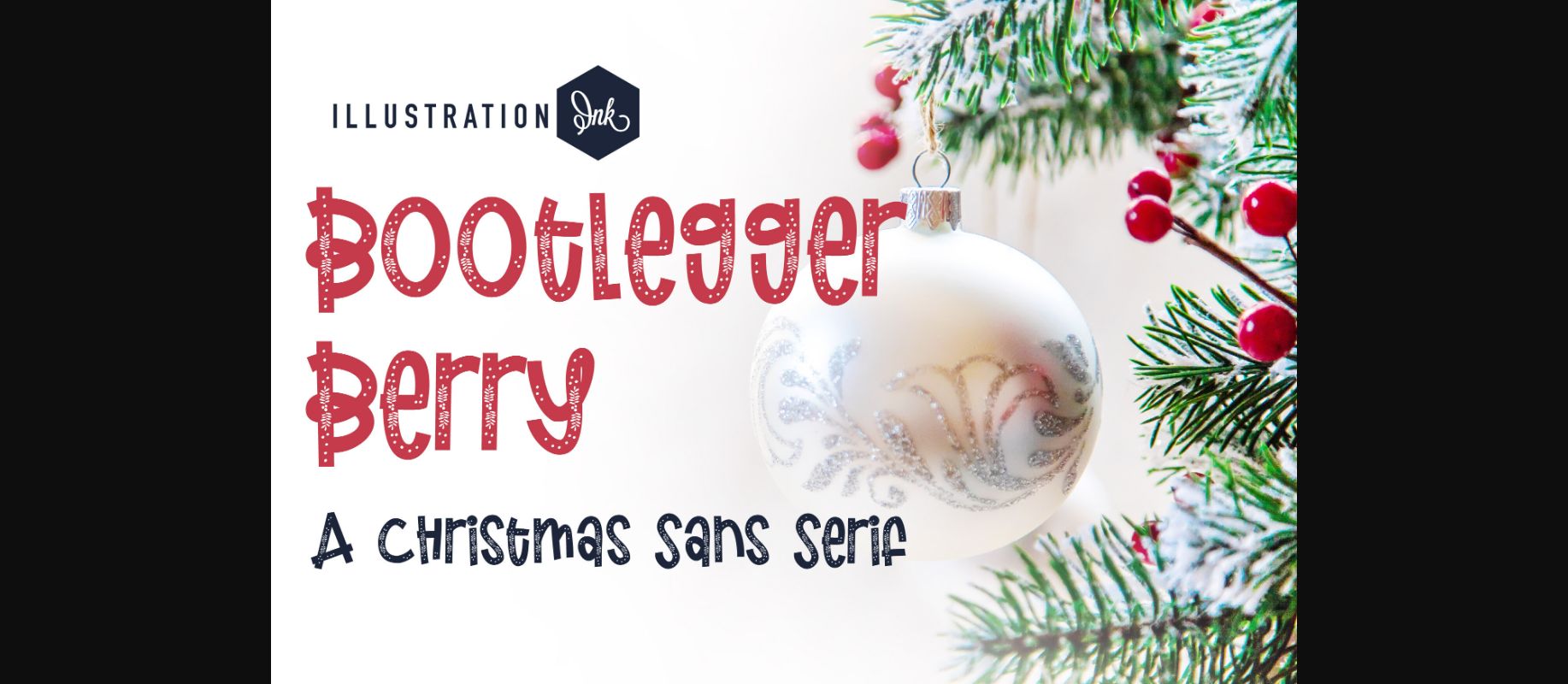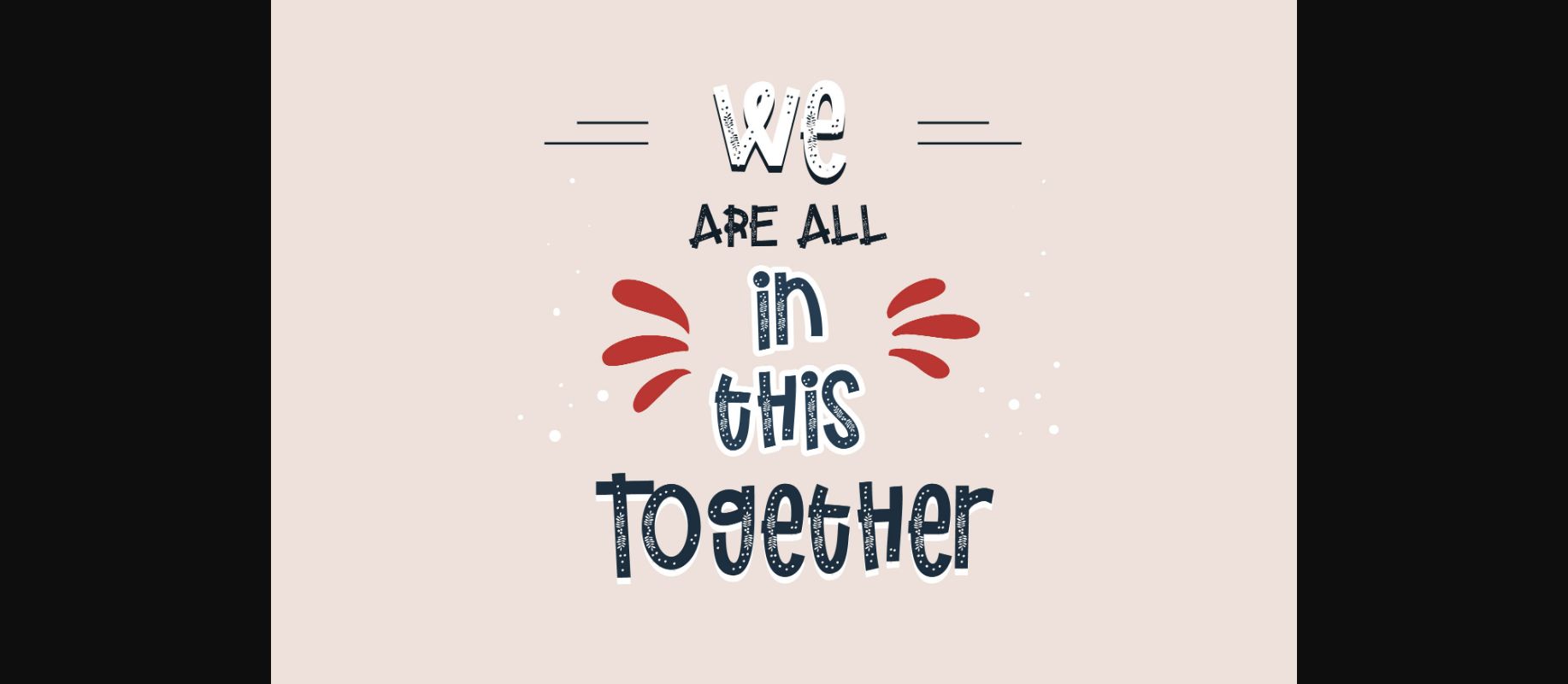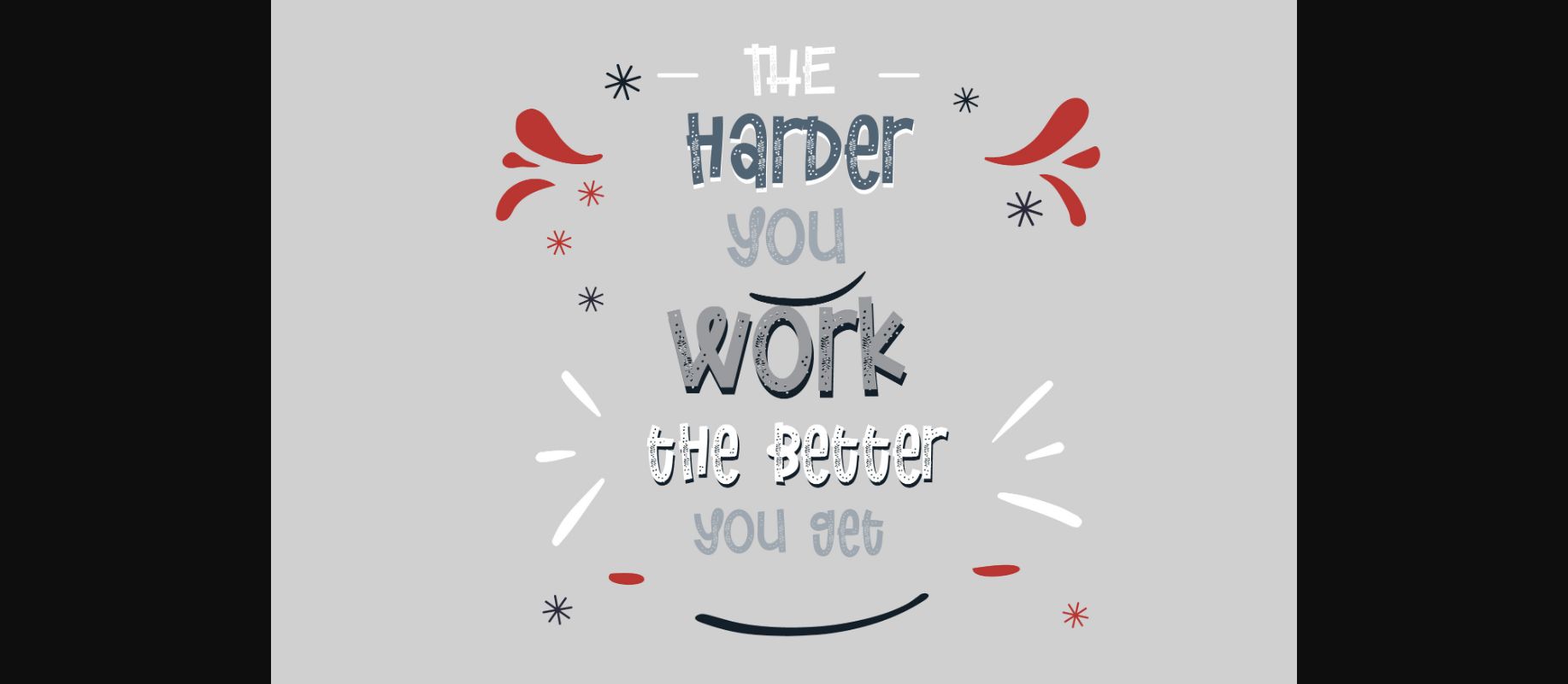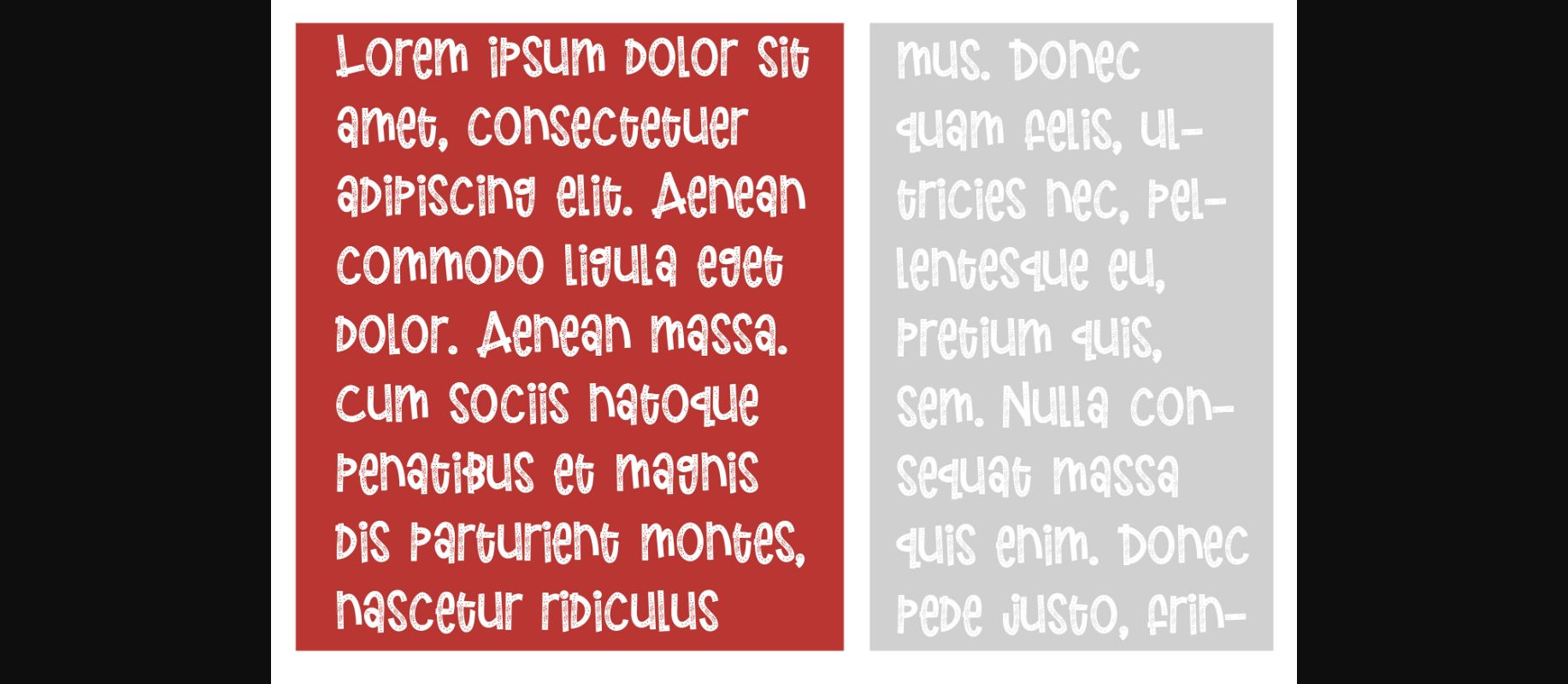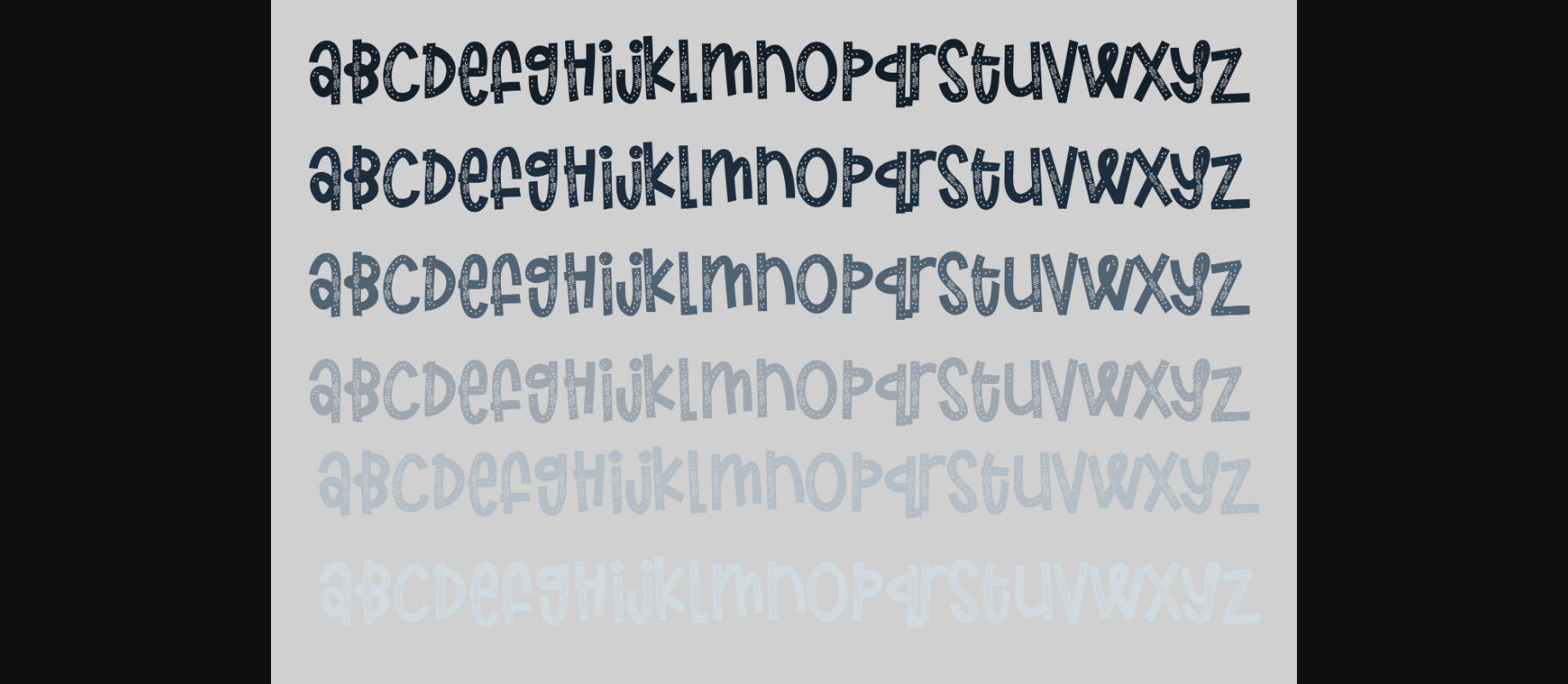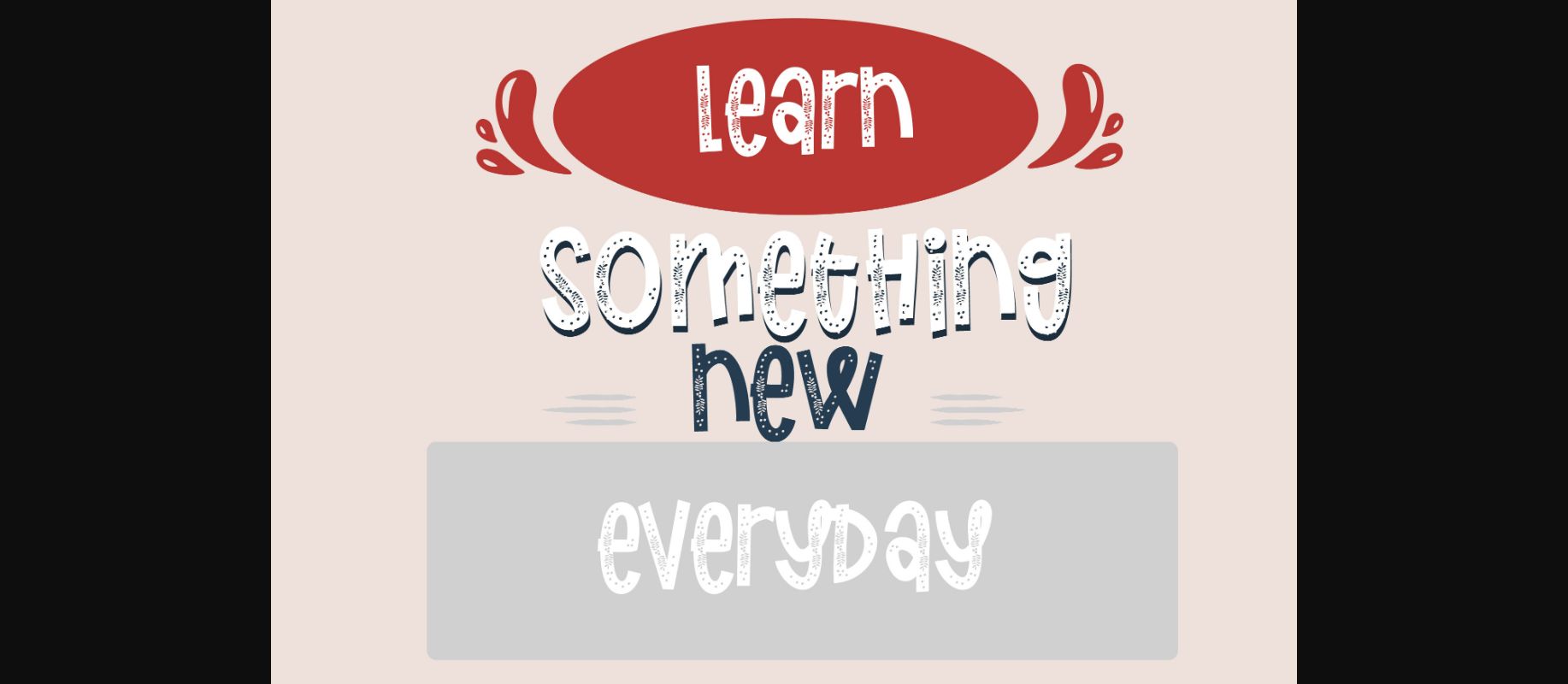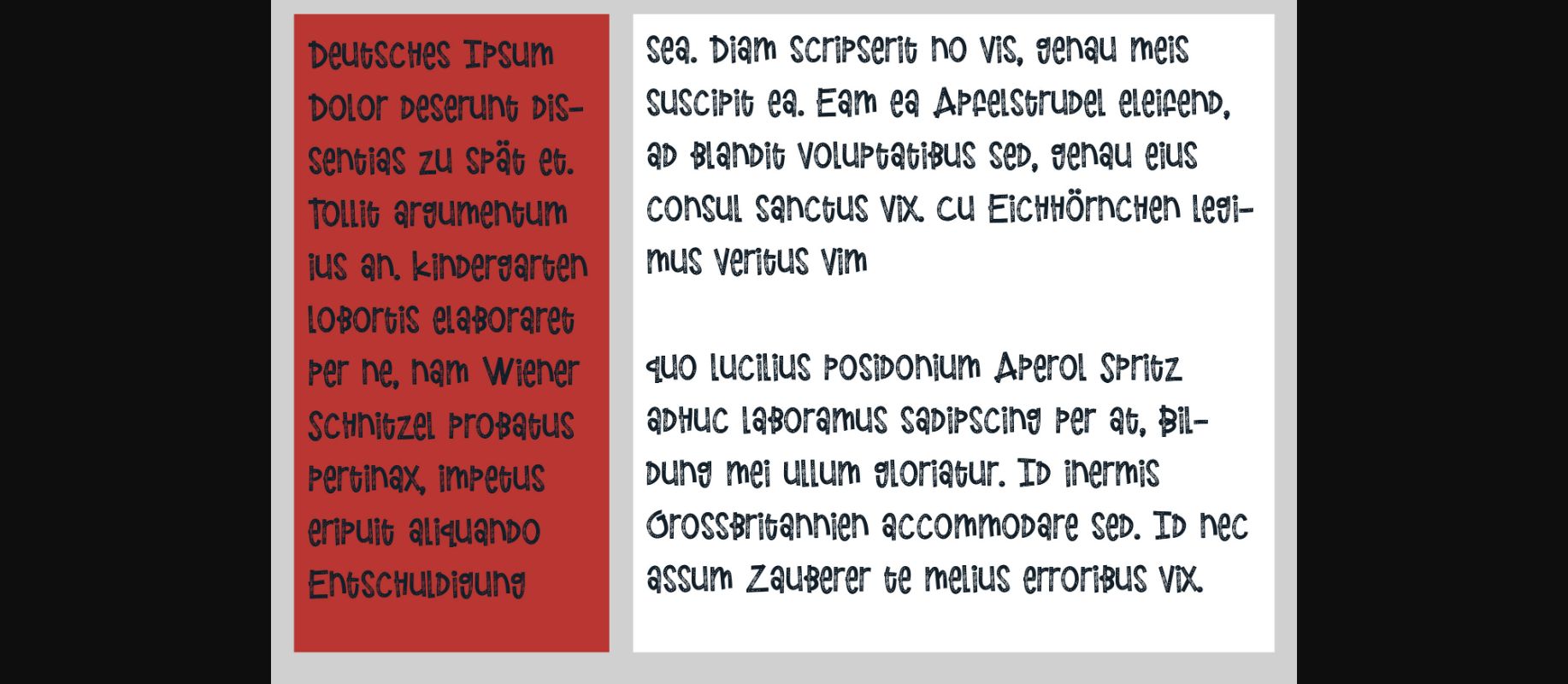
Bootlegger Berry Font
About Bootlegger Berry Font
This hand-crafted sans serif font features holly and berries.
A hand-crafted font is a font that is designed to look like it was written by hand. It is often used for invitations, greeting cards, and other items. Handwritten fonts can be either formal or informal, and they can be used for a variety of purposes.
Handwritten fonts can be a great way to add a casual touch to your designs. They can also be used to create a sense of nostalgia or whimsy. However, it is important to choose a handwritten font that is appropriate for the project you are working on. A formal handwritten font may not be appropriate for a casual invitation, while an informal handwritten font may not be appropriate for a corporate document.